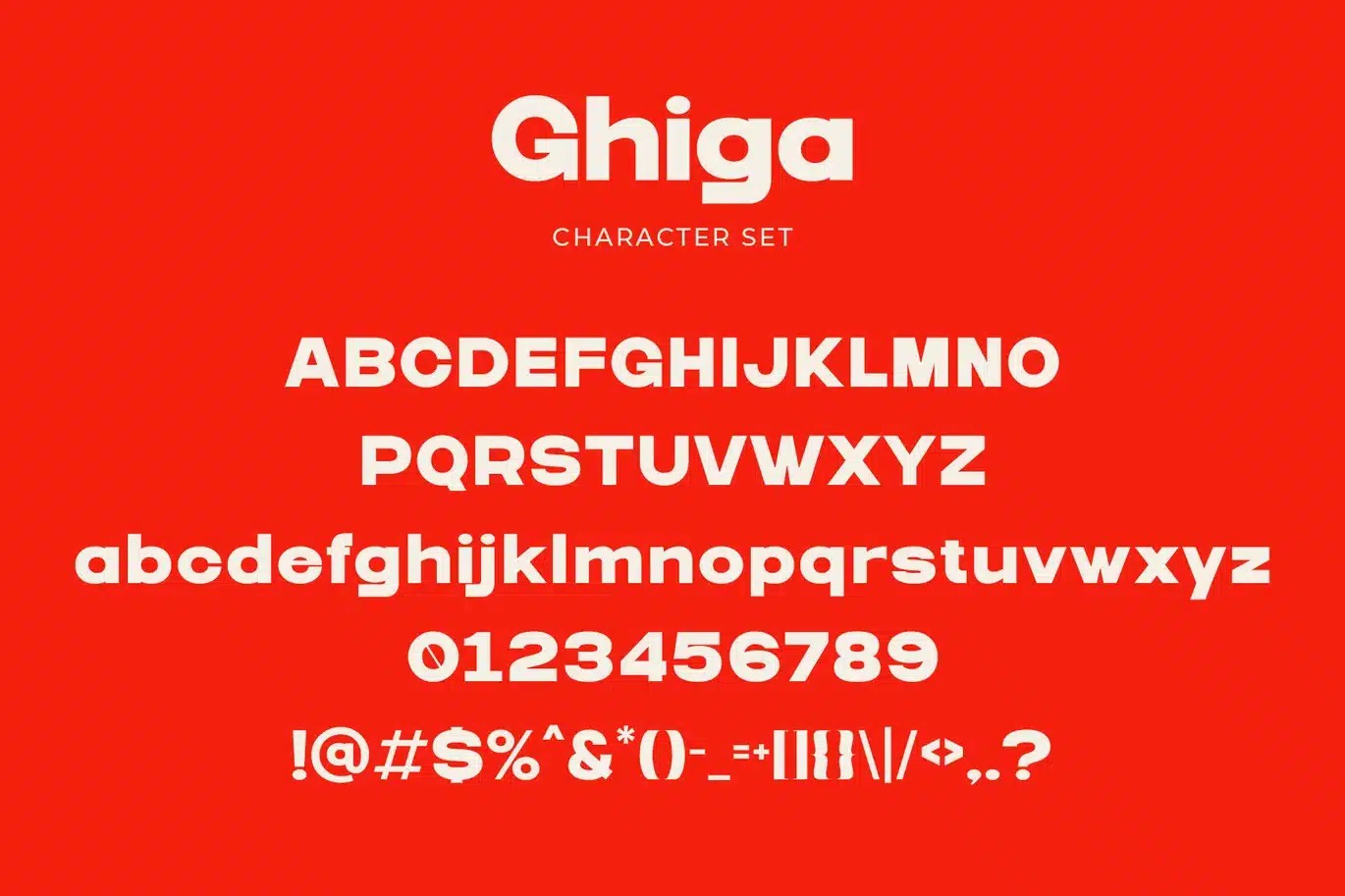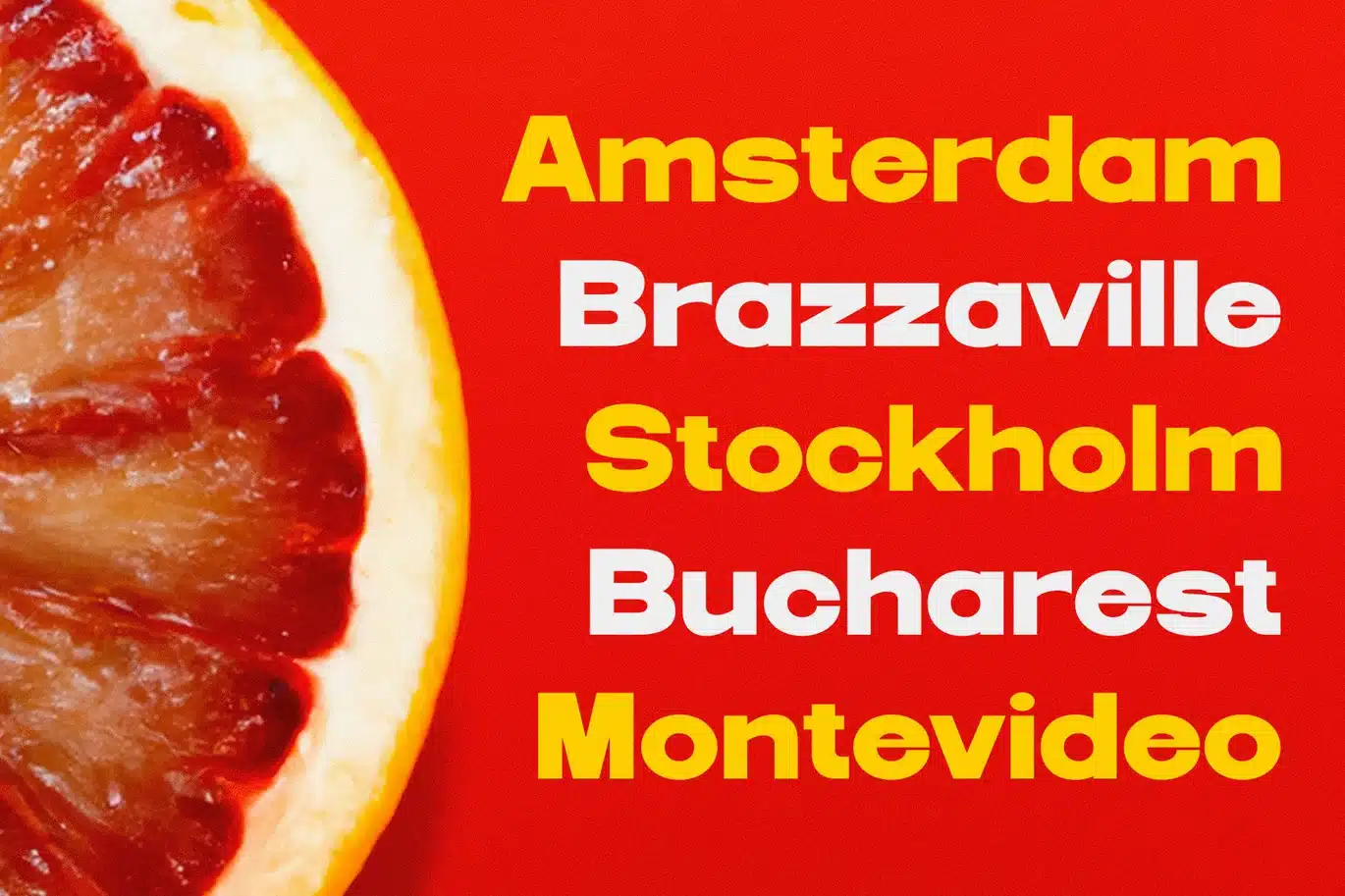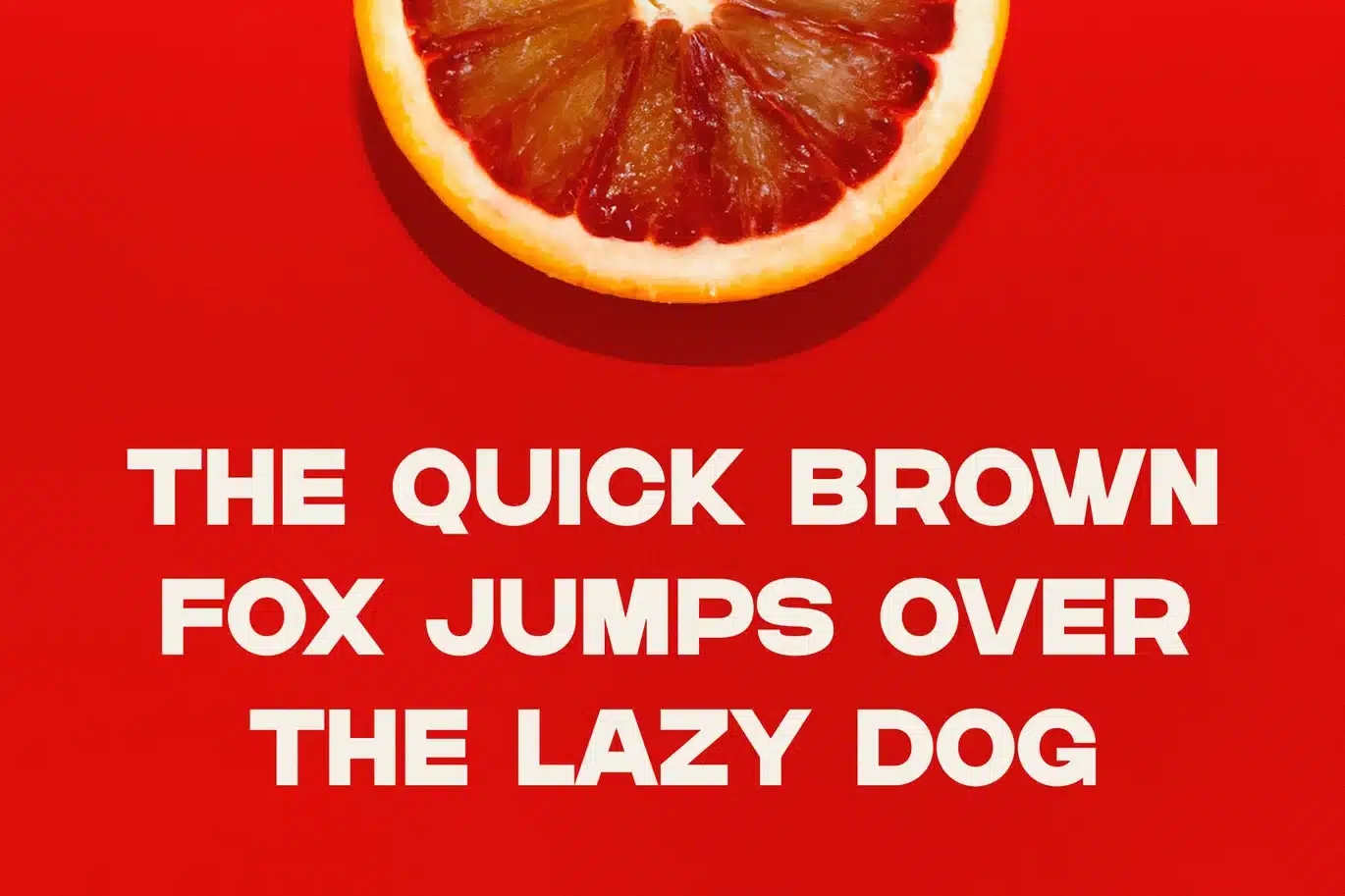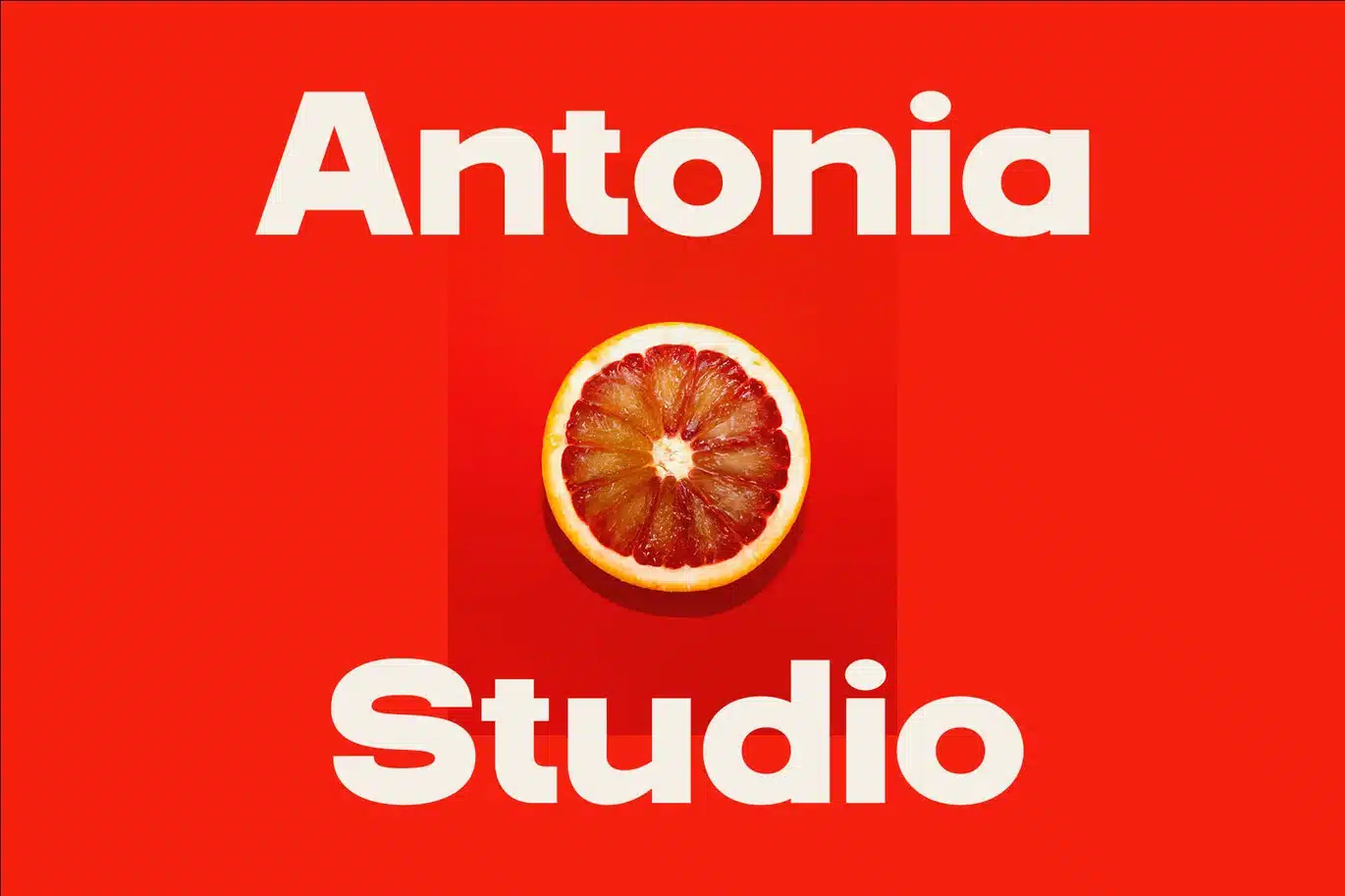
Ghiga – Modern Sans Serif Font
Introducing our new Ghiga, modern sans serif font with elegant style this is perfect for branding, logos, invitation, magazines, product packaging and more.